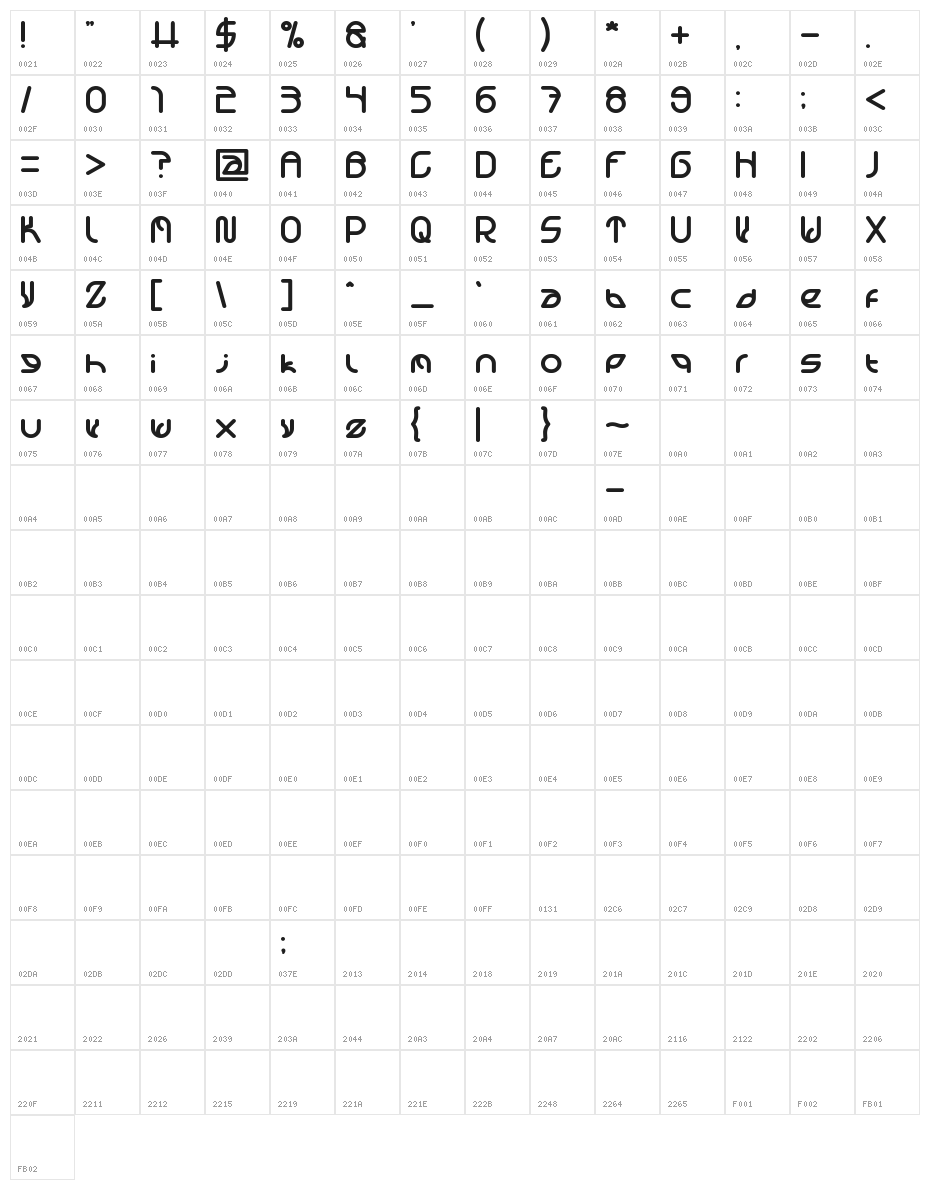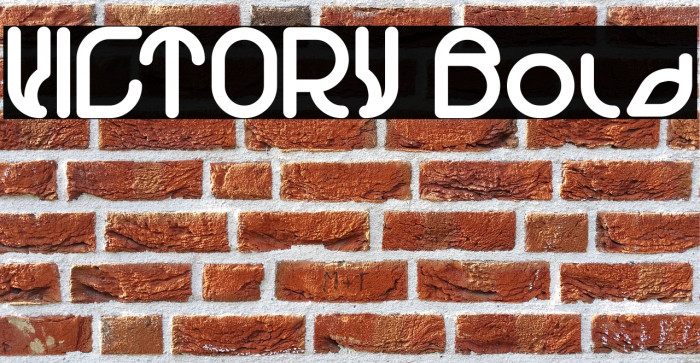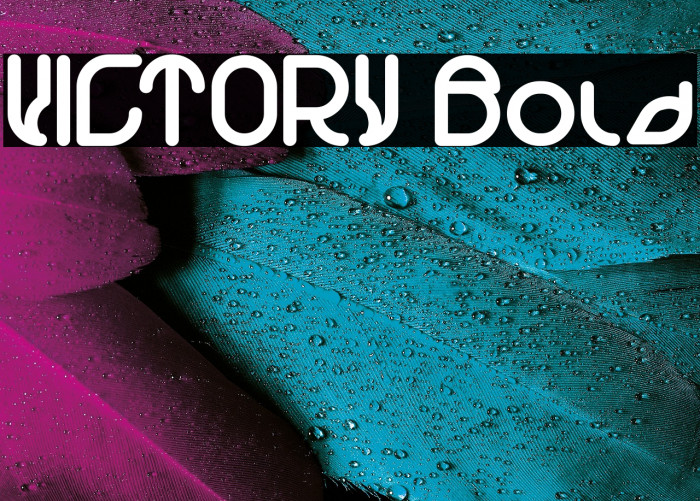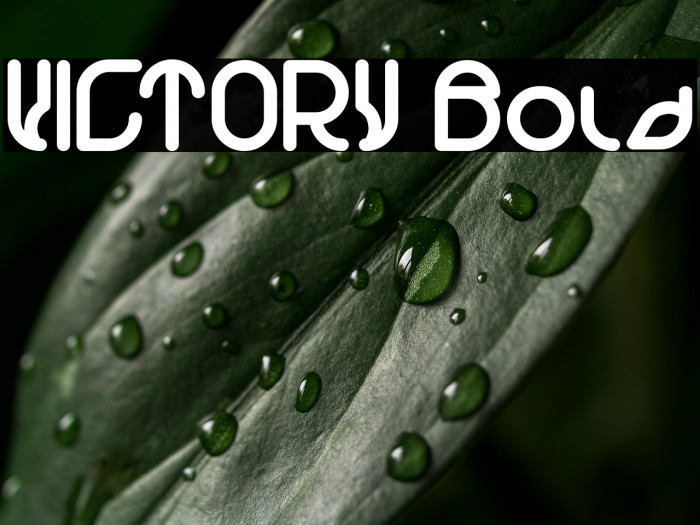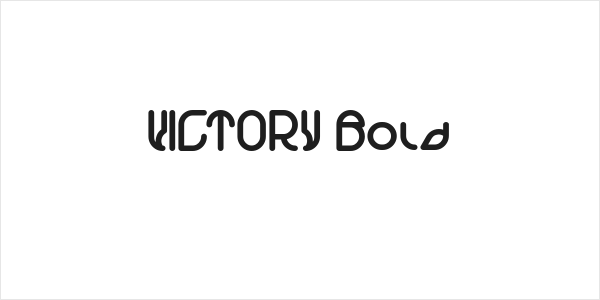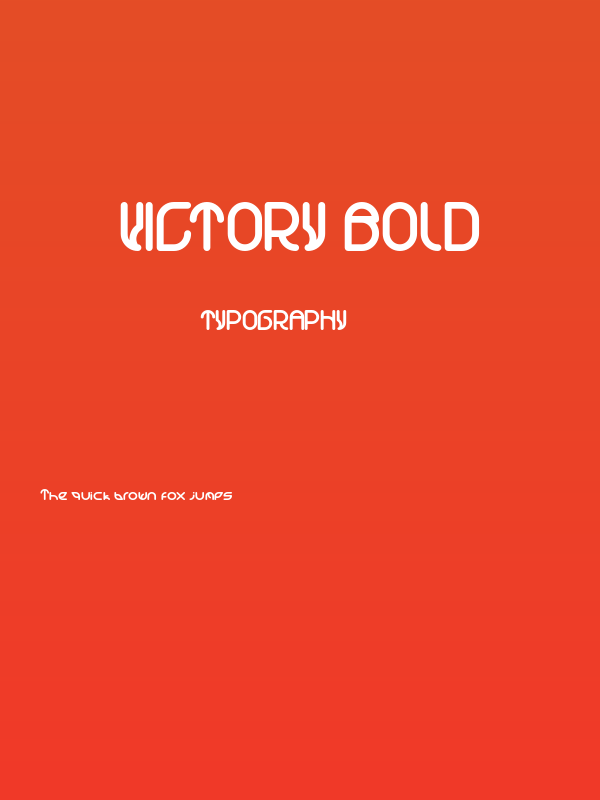
VICTORY Bold Font
VICTORY Bold Description
This font features a bold, rounded style with a futuristic and geometric appearance. The characters are uniform in width, creating a cohesive and modern look. The uppercase and lowercase letters maintain a consistent design, with smooth curves and a slightly condensed form. The numbers and special characters follow the same aesthetic, ensuring a harmonious overall appearance. The font's boldness and unique style make it stand out, while its rounded edges add a touch of softness to its otherwise strong presence.
Proposed ProjectsIdeal for technology branding, modern posters, futuristic designs, and digital interfaces.